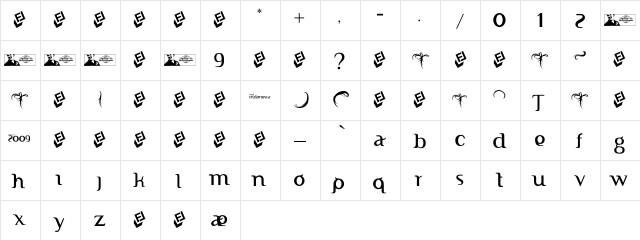
FTF Indonesiana Serif Free ;) Regular
| Foundry | Fizzetica TypeFoundry Depok Asiana |
| Designer | Abdul Hafiz Hilman |
Design Context for FTF Indonesiana Serif Free ;) Typeface
FTF Indonesiana Serif Free ;) carries the refined structure of traditional serif typography, with bracketed terminals and considered proportions that communicate credibility and craft.